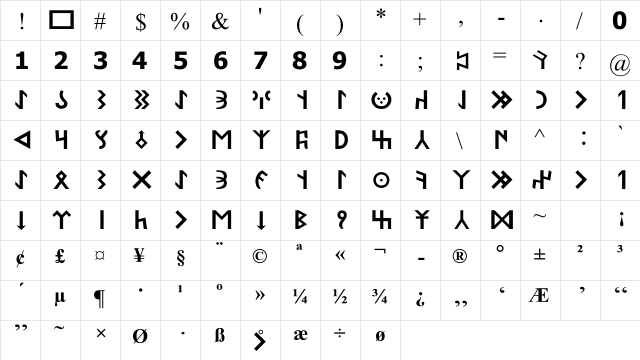
UKIJ Orxun-Yensey Regular Font Preview
UKIJ Orxun-Yensey Regular
UKIJ Orxun-Yensey Regular Font Details
| Foundry | Uyghur Computer Science Association |
| Designer | Tursunjan Sultan (alp) |
Design Context for UKIJ Orxun-Yensey Typeface
UKIJ Orxun-Yensey takes a measured approach to typography — its balanced proportions and neutral character make it a reliable workhorse for both digital and print work.